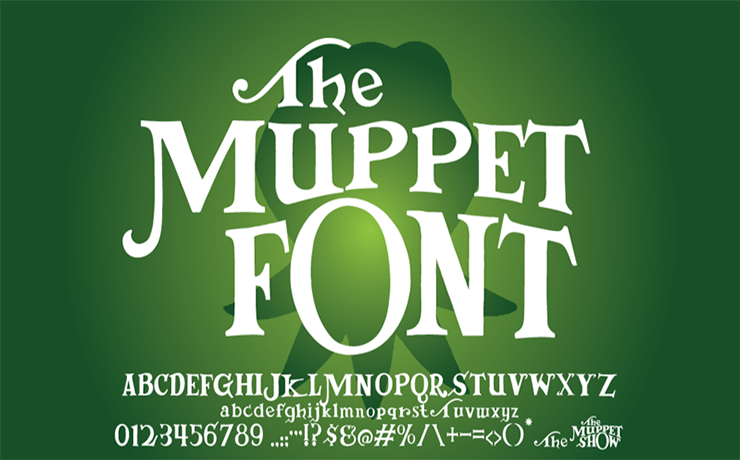
Muppets Font is definitely a very stylish fancy typeface you can find which looks very mysterious with a touch of simplicity that provides it a more interesting appeal ideal for all types of layout options.
The charge of creating and publishing this font was by Kade Fisher for the first time in July 2020.
Every character is designed in a unique way that makes it more beautiful and masterful. In addition, it adds sophistication to many characters through sharp corners.
This amazing font maintains its shape and is a great choice for stylish designs. The whole structure is bold because it was created with the help of cursive strokes.
| Font Name: | Muppets Font Family |
| Style: | Fancy, Various, Typeface |
| Font Designer: | Kade Fisher |
If you look at all the letters, you will notice that some of the letters are different in size but they are different sizes.
Due to its elegant look, you can create book covers, posters, comic covers, banners, greeting cards, stylish magazines, fashion magazines, game titles, barbie posters, printing on cards, and many other awesome places.